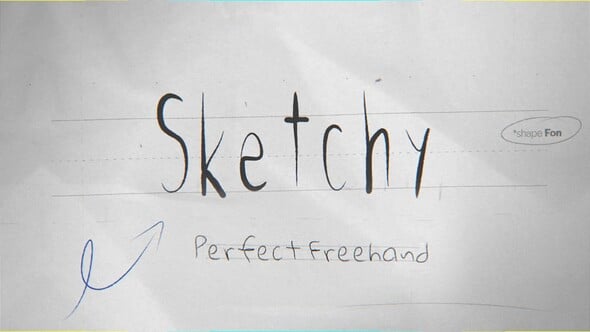
Sketch Text Write-On Tool | 7 Custom Shape Fonts with Perfect Freehand Scribble Animation
7 Sketch Rough, authentic hand-drawn fonts suited for scribble, doodle, or sketchy conceptual designs.
Animating write on Text has never been easier.
Control over timing, style, and dynamic effects — all without keyframes or complex rigs.
7 Custom Write On “shape Fonts”.
80 Custom Dynamic Drag And Drop Scribbles.
Type your text and animation builds automatically.
Consolidated into a Single editable vector layer.
Unique feature in after effects that has never been done before!
Animating write on Text has never been easier.
Control over timing, style, and dynamic effects — all without keyframes or complex rigs.
A powerful tool that let you fine-tune animated Scribbles without keyframes.
Quickly adjust animation speed, delay, and easing.
Simply Drag the Layers In Out Points To Adjust Responsive Duration.
Enable Animate In and Animate Out with per-stroke randomness.
Fine-tune stroke width, color, tracking, and tapering.
Add dynamic stroke wave distortion with full control.
No keyframes needed – everything auto animated!
No Manual Tracing or Masking.
Custom FX Controls
Dynamics
Speed: Speed of the animation.
Delay: Delay between strokes or letters.
Easings: Stop Motion, Ease Per Letter, or Uniform Ease.
Random Order: Randomizes stroke animation order.
Animate In: Enables entrance animation.
Animate Out: Enables exit animation.
Properties
Stroke Width: Controls stroke thickness.
Stroke Color: Sets the stroke color.
Tracking: Adjusts spacing between letters or elements.
Styling
Taper Start: Thinning at the start of strokes.
Taper End: Thinning at the end of strokes.
Taper Offset: Shifts tapering across stroke.
Extra
Wave Amount: Adds dynamic wave distortion.
Wave Length: Controls how wide the wave is.
Wave Phase: Offsets the wave position.